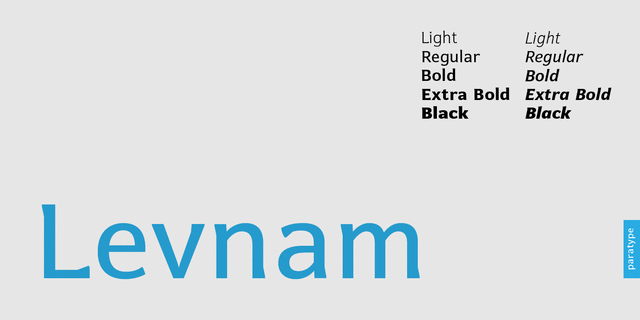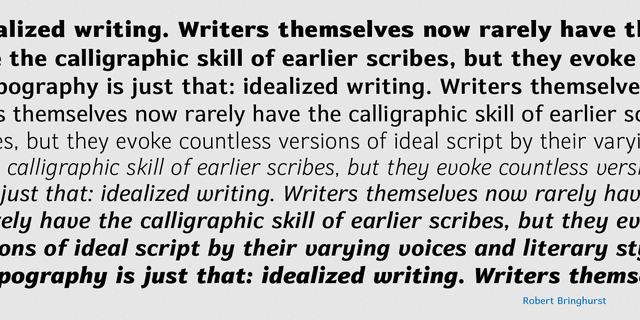
About LevnamLevnam is a sans-serif family with quite wide proportions, slightly thickened terminals and wide sidebearings. The font is well suitable for setting text in small point sizes, similar to Bell Centennial or Verdana. Designed by Manvel Shmavonyan. Released by ParaType in 2015.
Associations for font family LevnamTypeface personality and character:
urban, cultural, cultured, static, stable, comfortable, flat, interesting, high-quality, business, solid, strict, accurate, educated, serious, expensive, rich, reliable, convincing, self-assured, authoritative, motivating, heavy, notable, strong